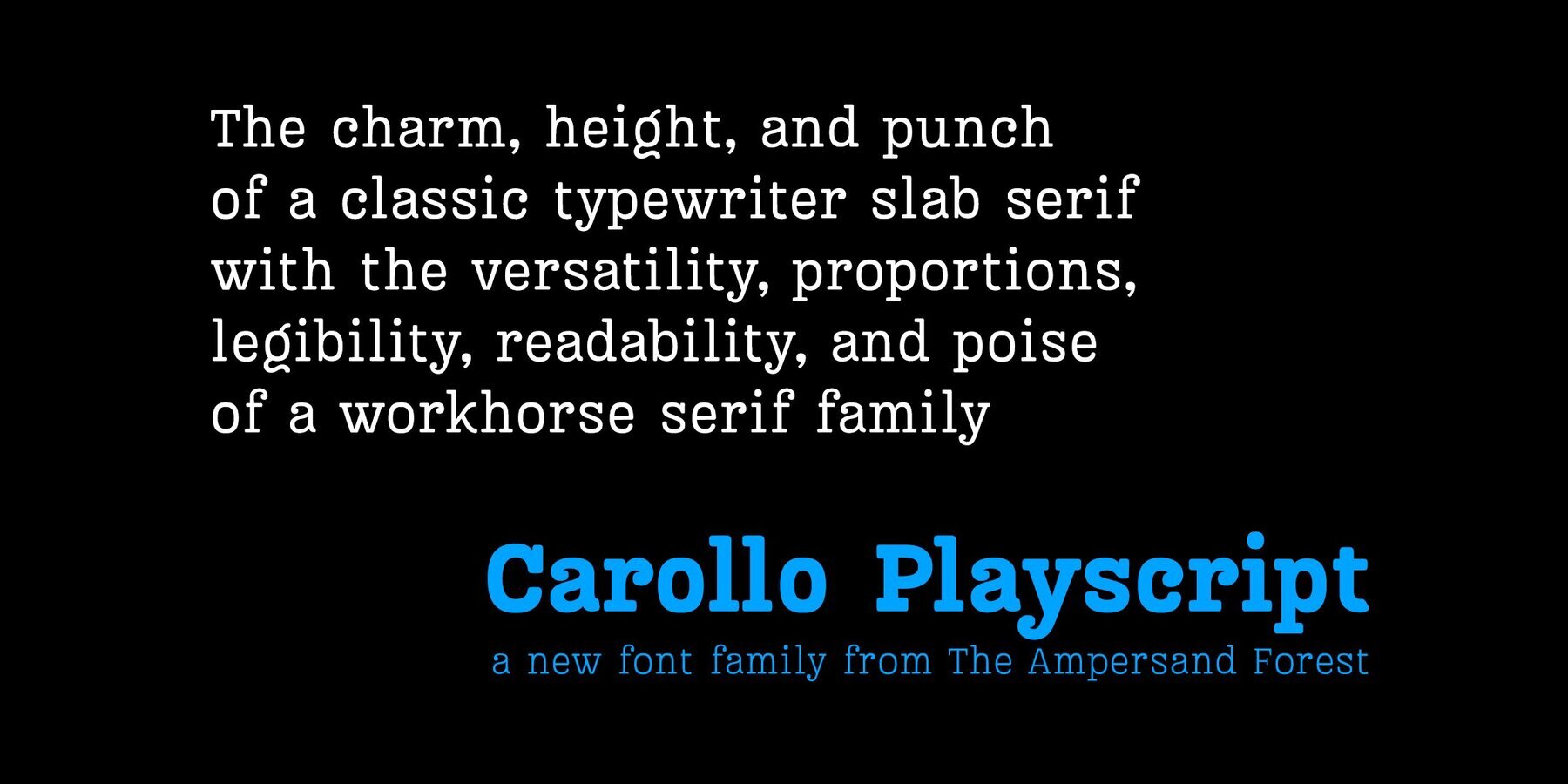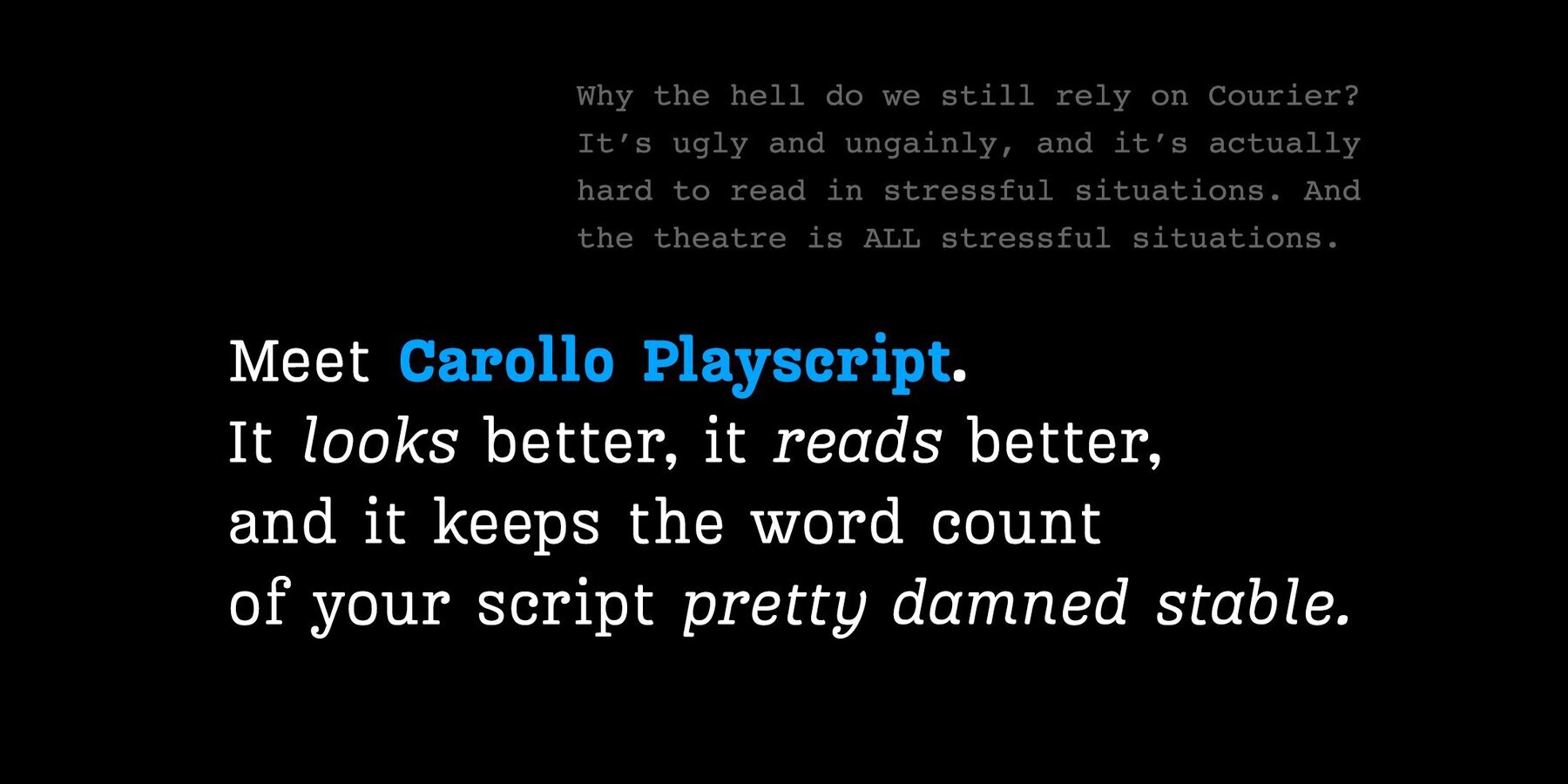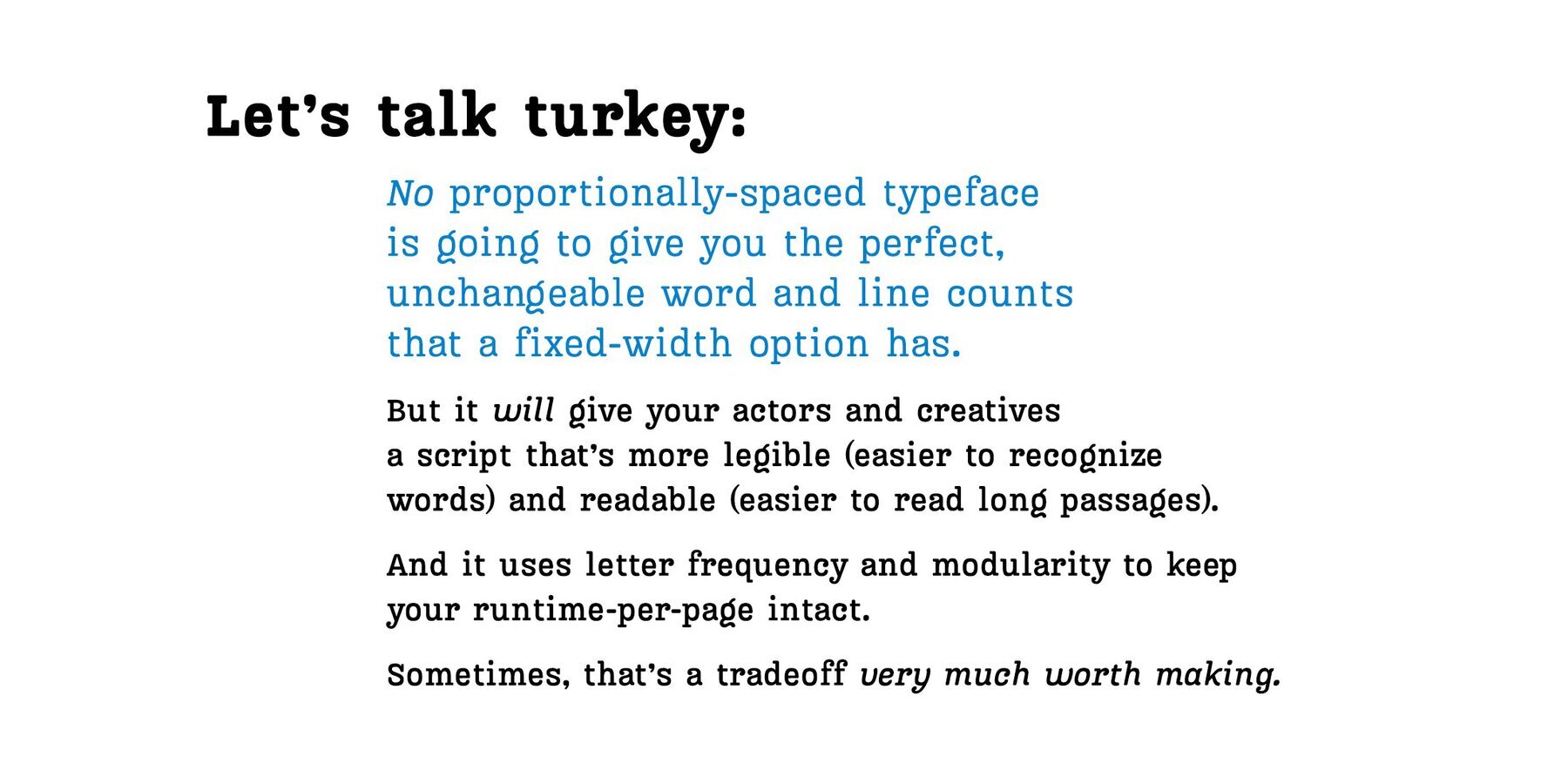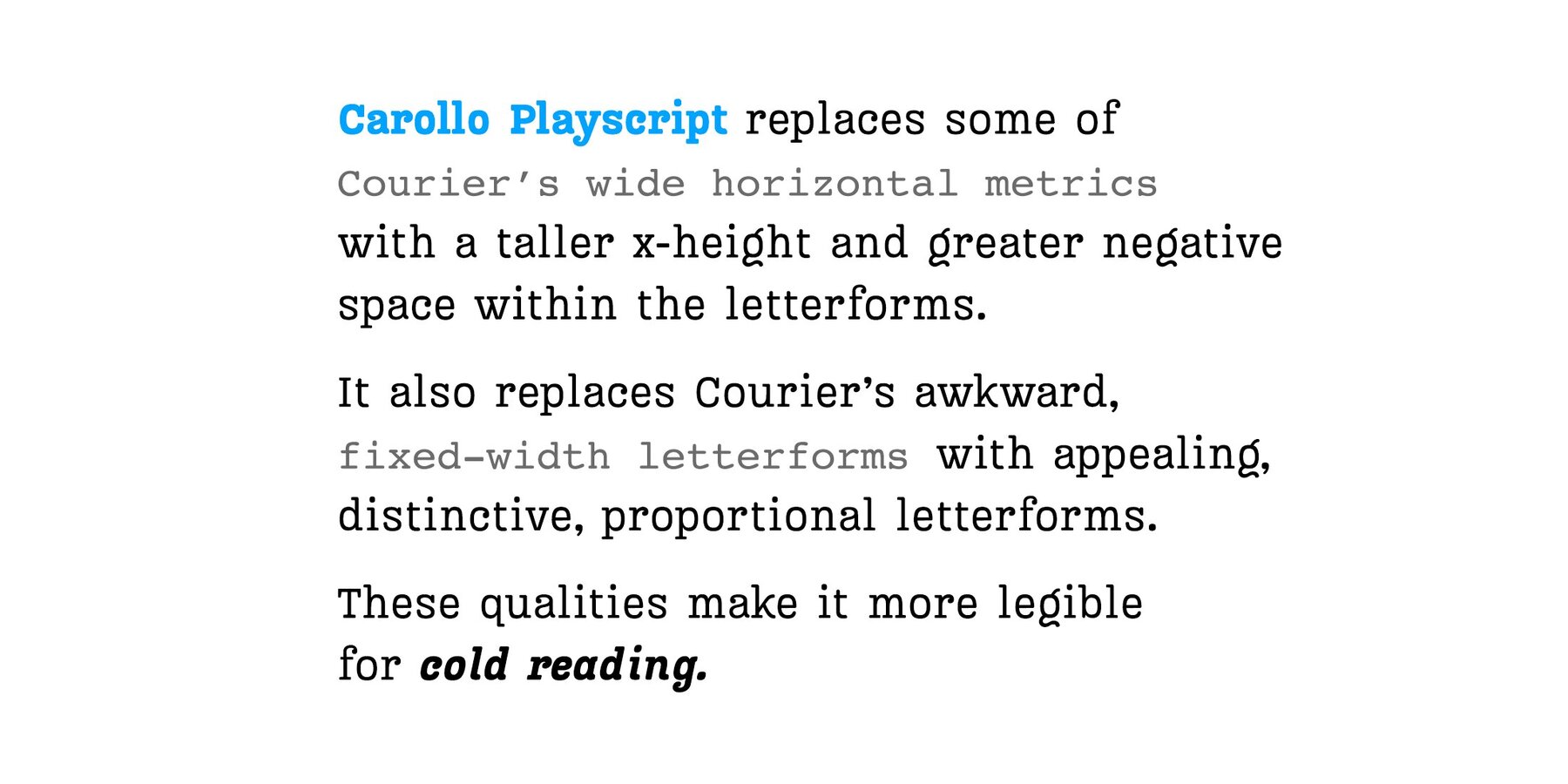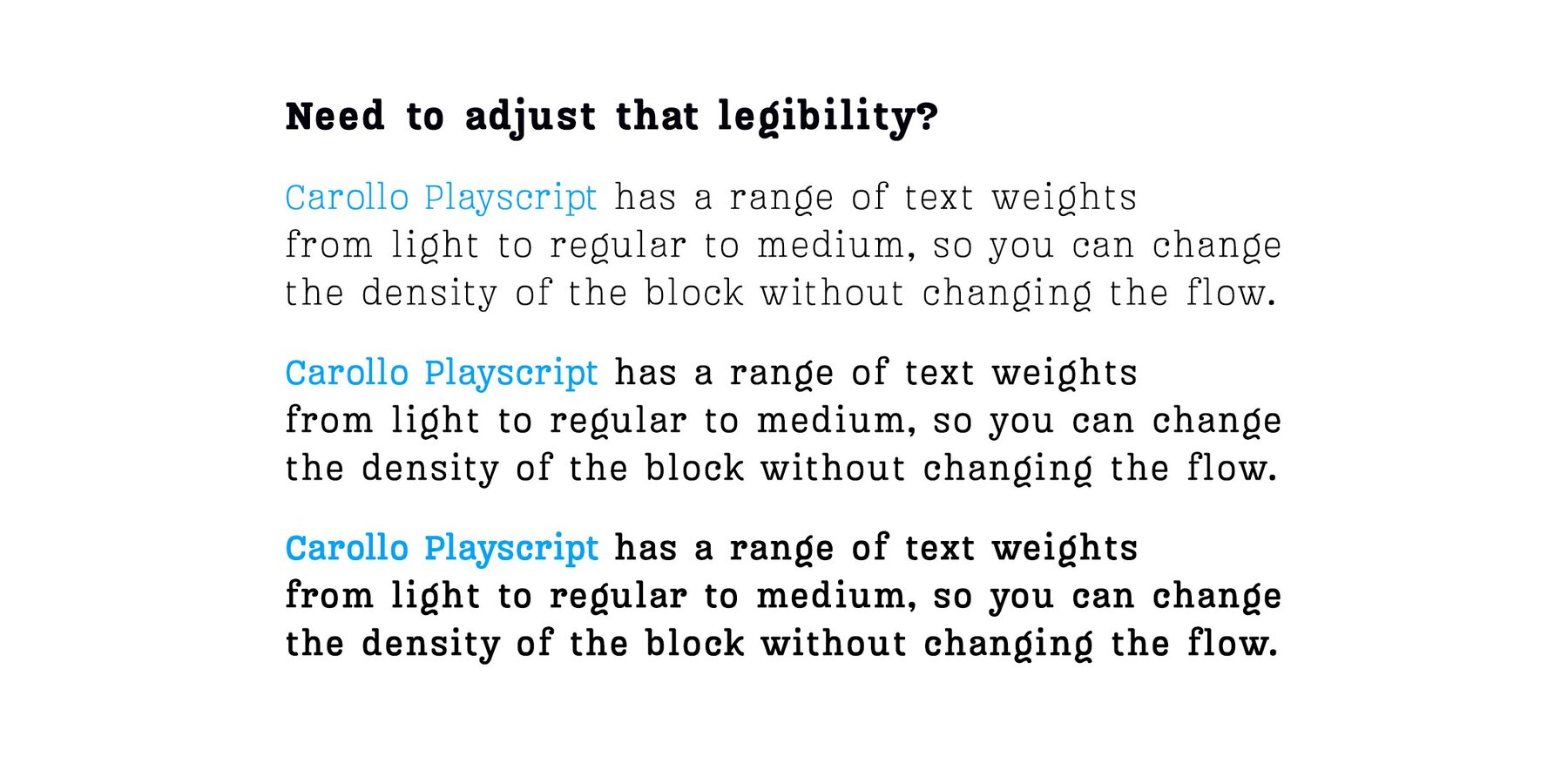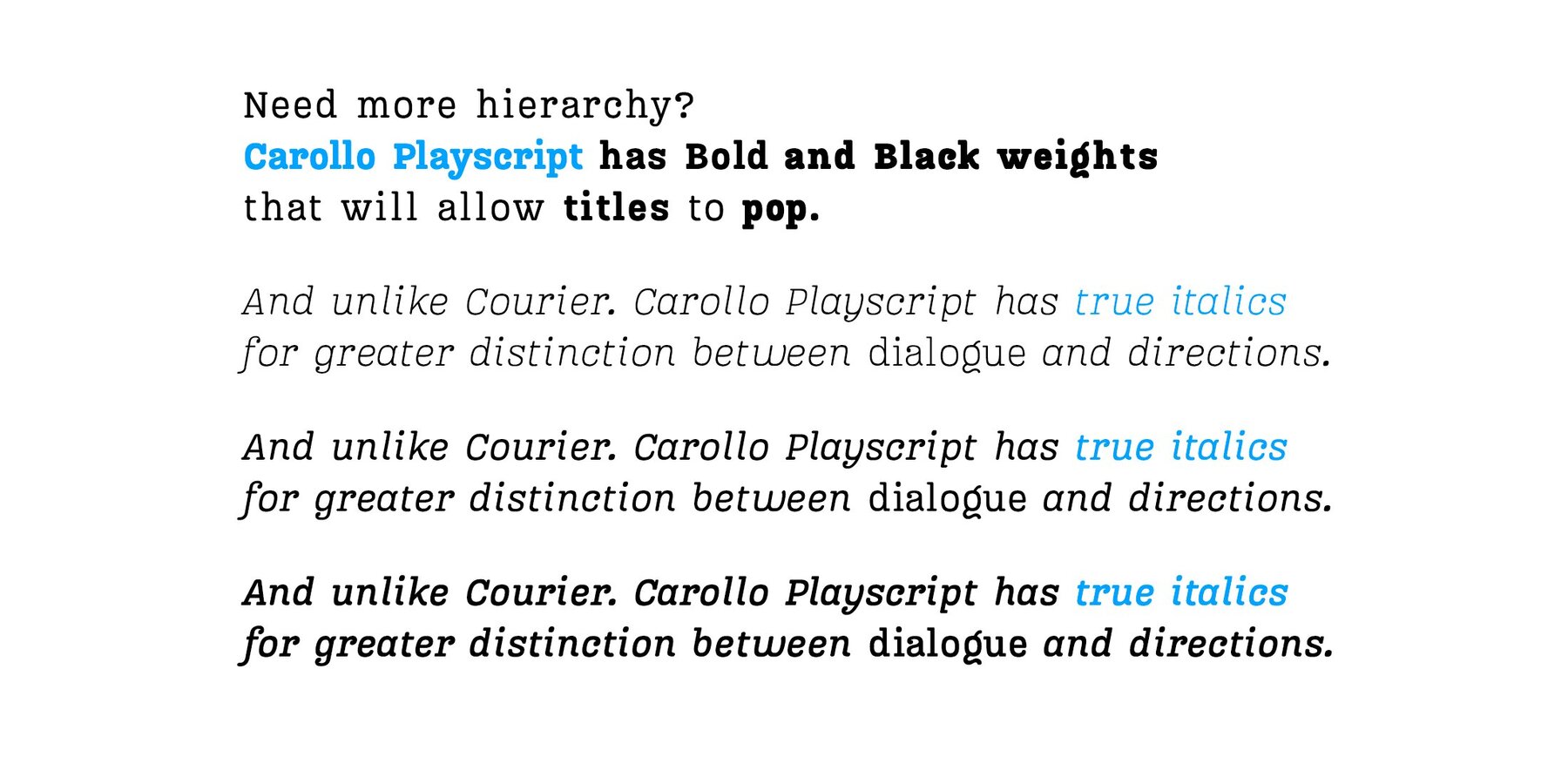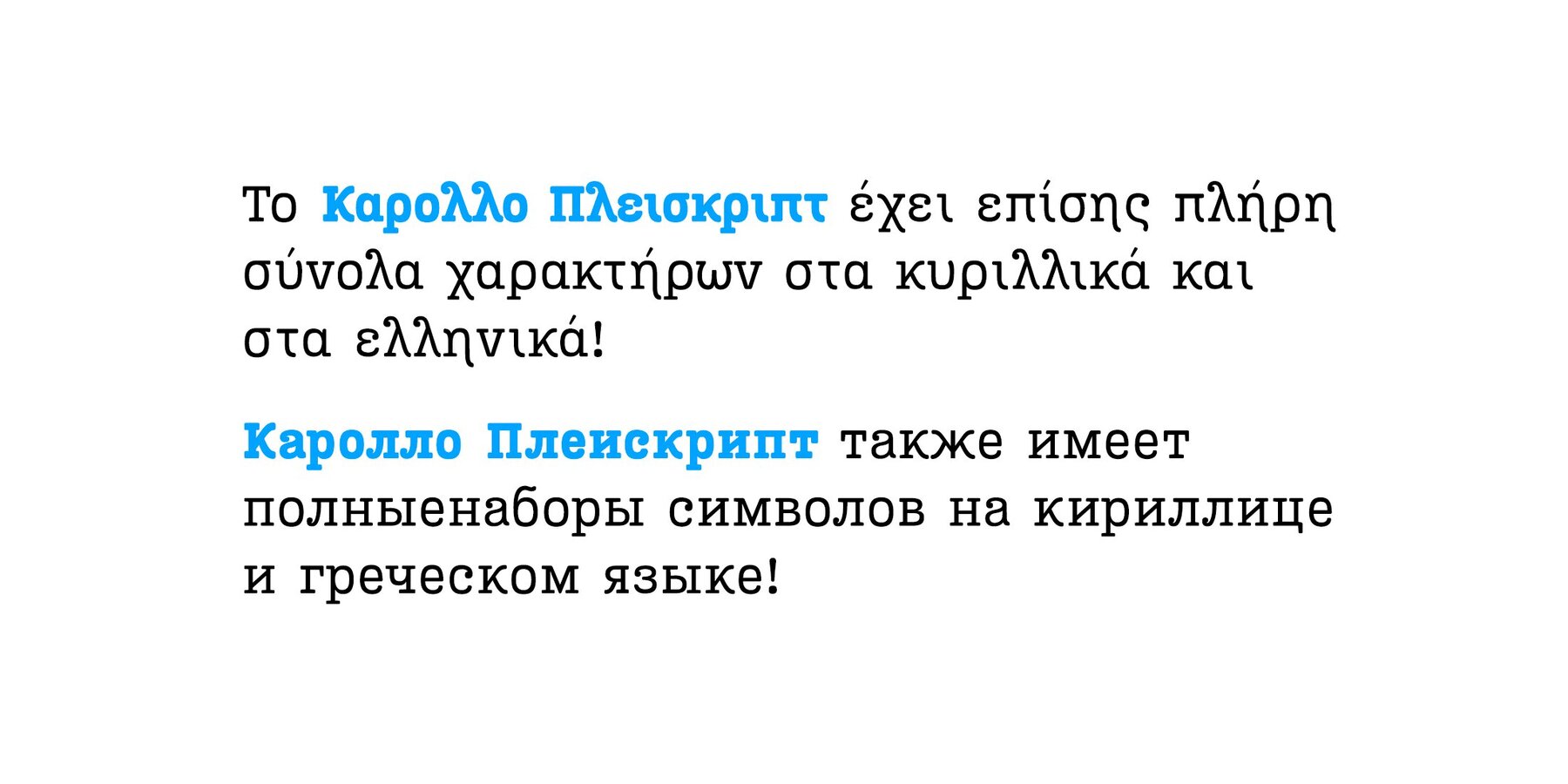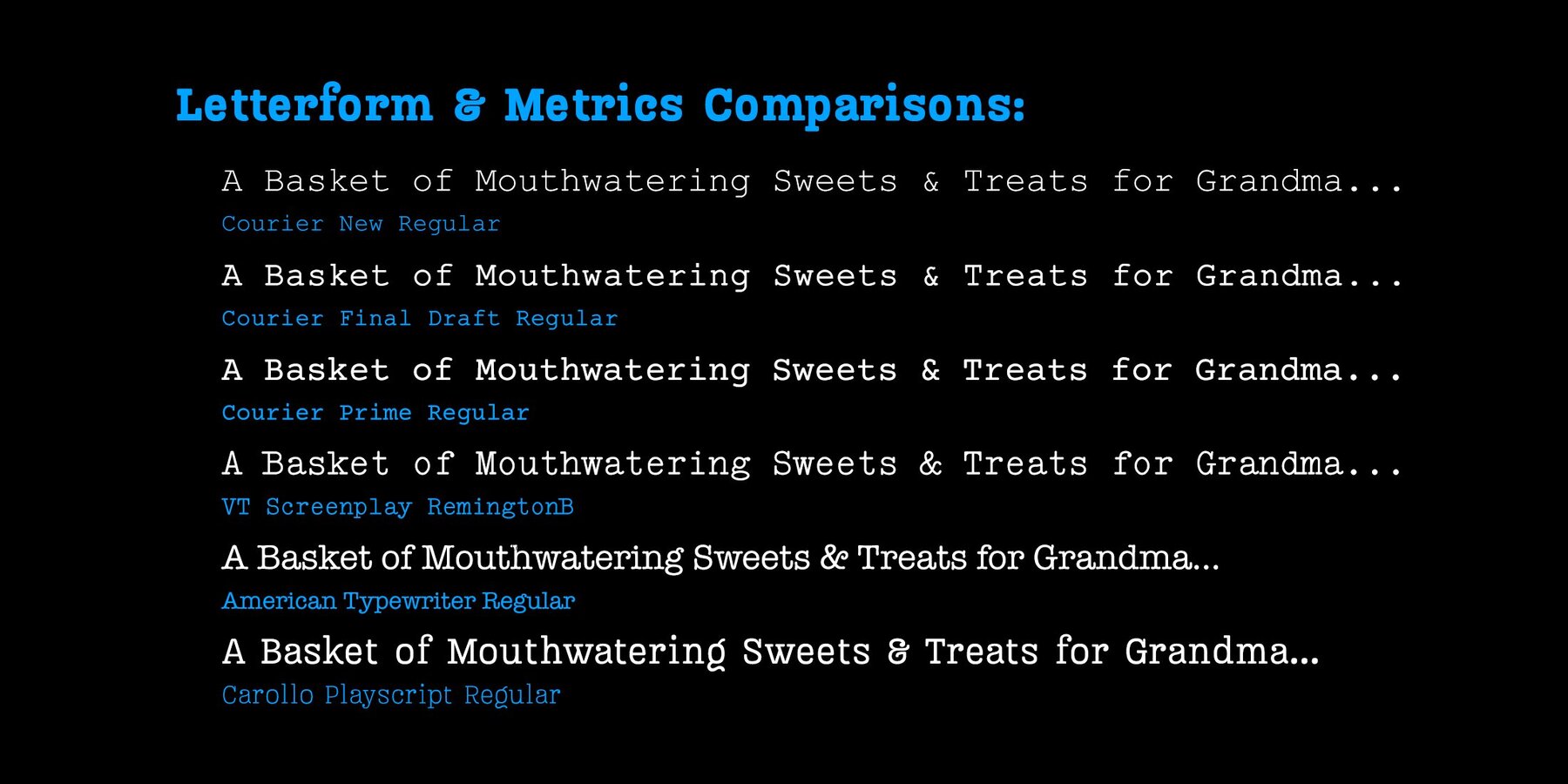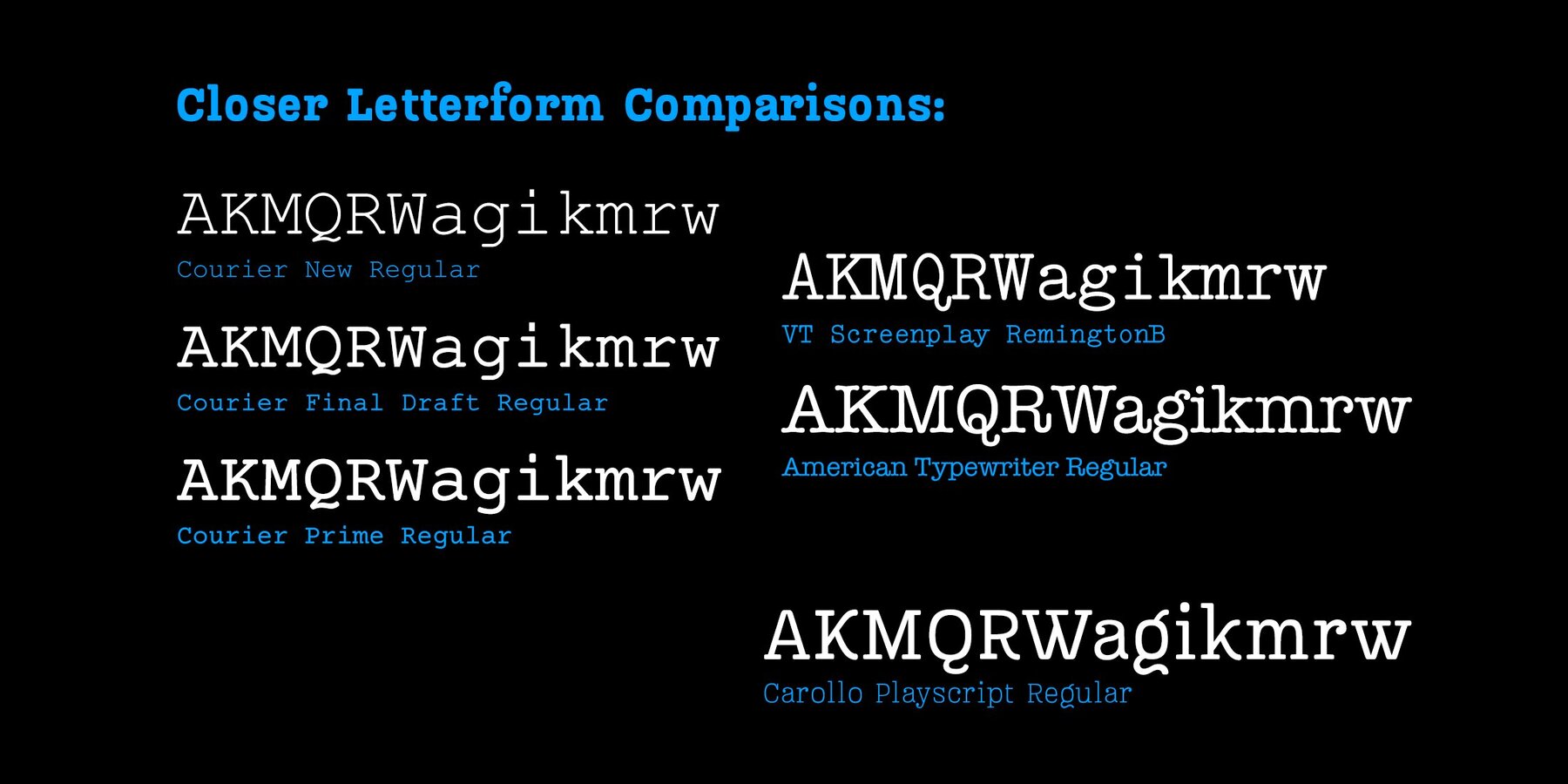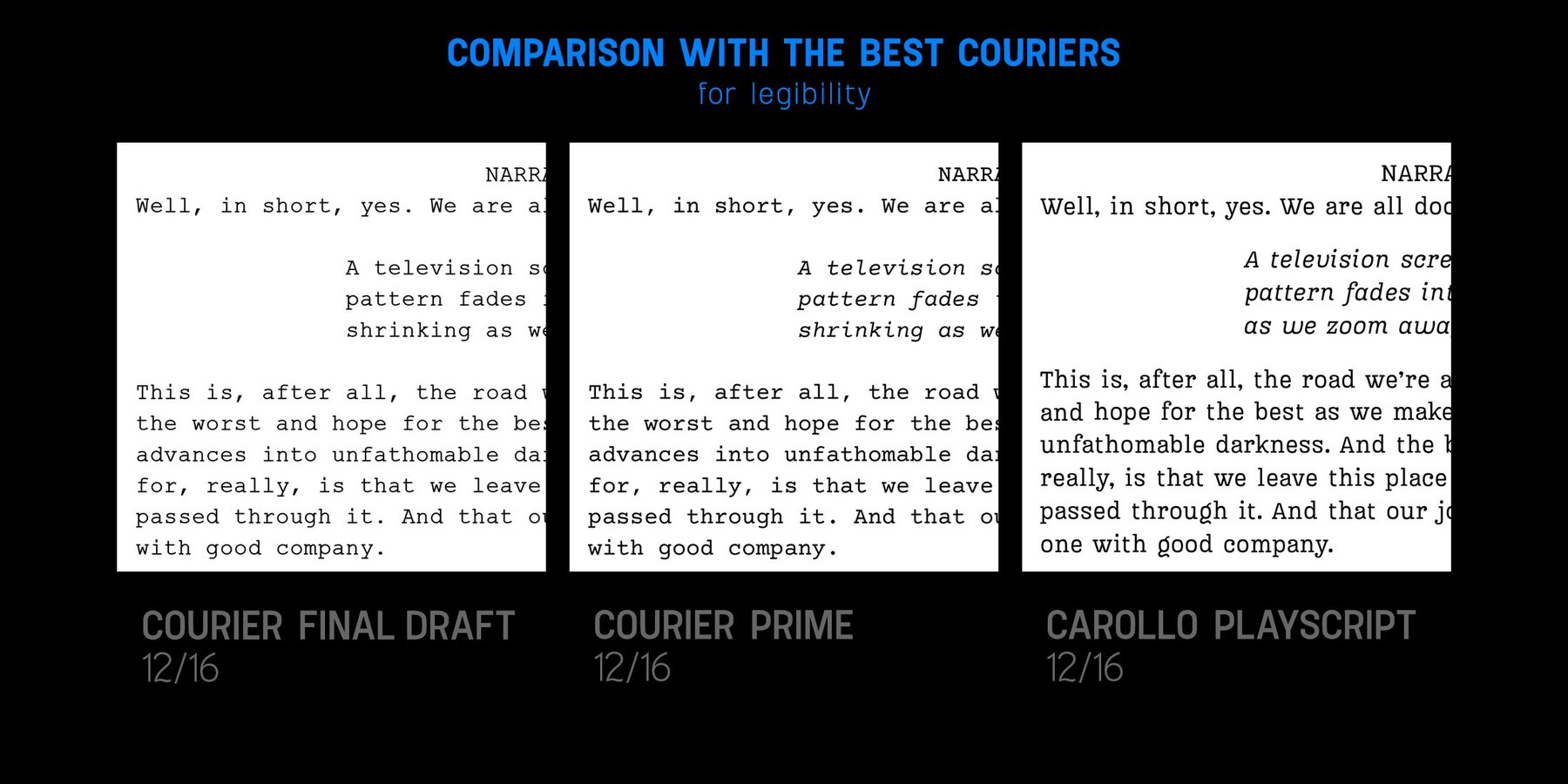
Carollo Playscript Font
The typewriter gave us the dominant document body copy look for much of the 20th century. This is especially true of scripts — whether for stage or screen. In the entertainment industry, Courier is still the industry standard for scriptwriting.
The problem is that Courier is ugly. Like all typewriter slabs, it's monospaced, so wide letters like m and w are cramped into the same horizontal space as narrow letters like i and l, which are forced to have exceptionally large serifs to fill the same space. More than that, standard digital versions of Courier are too light for effective reading under stressful performance conditions.
Enter Carollo Playscript. Carollo Playscript has the charm, height, and punch of a classic typewriter slab serif with the versatility, proportions, legibility, readability, and poise of a workhorse serif family. Its high x-height and recognizable letterforms gives your talent and creatives a script that's more legible and readable. Unlike Courier, it has true italics to set directions and actions apart from dialogue. And it has three body weights—light, regular, and medium—to let you adjust the density of block text. It even has Greek and Cyrillic character sets. And, even though it's not perfectly fixed-width, it keeps the runtime-per-page pretty damned stable. That's a tradeoff very much worth making!